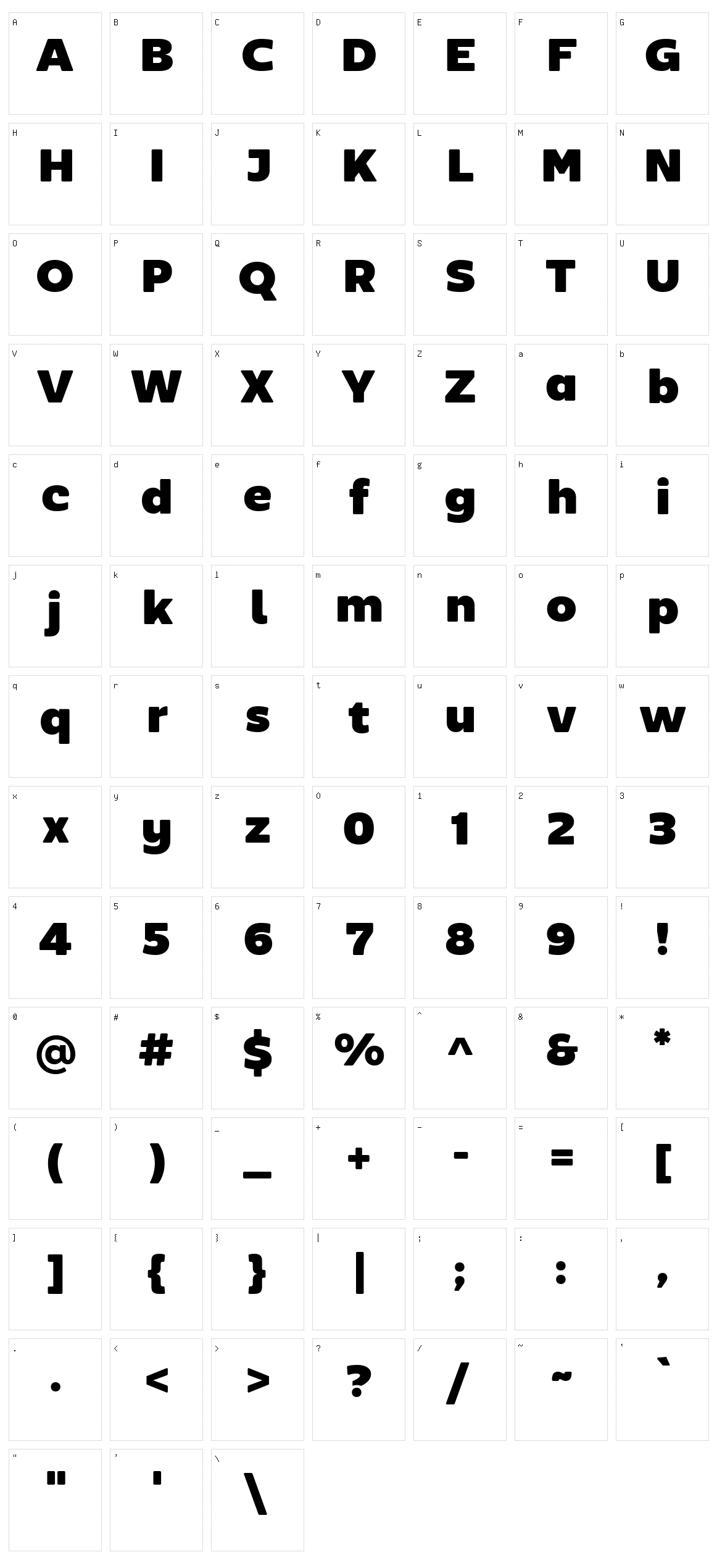
The free font Hitmo 2.0 is carefully designed by Julio Cesar Ceh, showcasing a thoughtful balance of creativity and usability and falls under the Sans serif font style. When you download the ZIP file, it contains only 171.38 KB of font files, making it lightweight and quick to download. Please review the license details below to understand permitted usage and distribution rights. If license information is not available, we recommend using this font for personal projects only or contacting the author directly for commercial usage permissions.